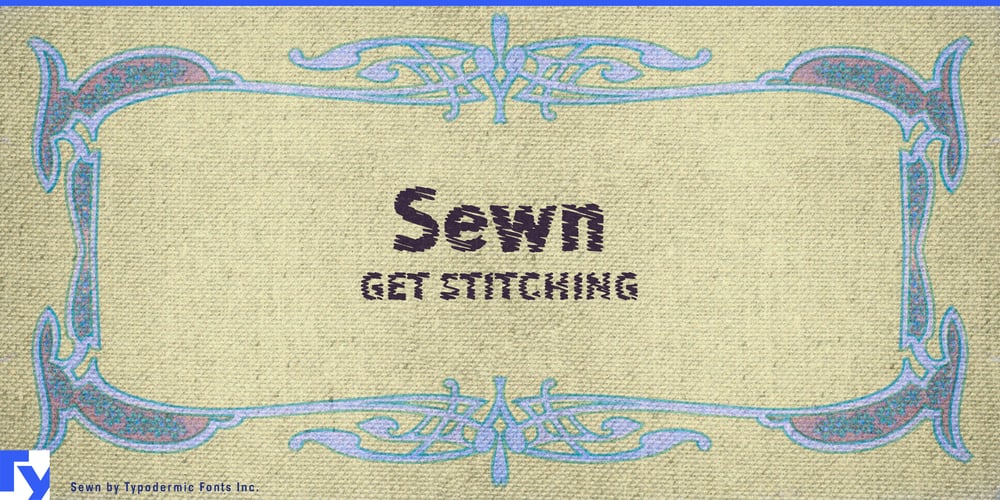
Sewn Font Family was designed by Ray Larabie and published by Typodermic. Sewn contains 4 styles and family package options. Step into a world where each letter tells a story of artisanal precision with Sewn, a typeface that weaves together the warmth of handcrafted textiles and the clarity of modern design. Inspired by the meticulous art of machine embroidery, Sewn brings a tactile dimension to your typography that’s sure to captivate and engage.This innovative typeface offers four meticulously crafted sizes—small, medium, large, and extra-large—each a testament to the delicate balance of thread thickness and stitch density. The result? An authentic embroidered aesthetic that maintains impeccable legibility across various applications. Sewn’s letterforms, influenced by the clean lines of Doradani, ensure your message is not just seen, but felt. Sewn doesn’t just imitate embroidery; it elevates it. The ingenious letter pair ligatures add a layer of sophistication, breaking the potential monotony of repeating characters and creating a visual rhythm that’s as pleasing to the eye as it is true to its craft-inspired roots. This attention to detail transforms ordinary text into a tapestry of typographic delight.From the intricate embellishments of brand logos to the bold statements of editorial headlines, Sewn adapts seamlessly to diverse design challenges. Its unique character shines in both digital and print mediums, lending an air of bespoke craftsmanship to websites, packaging, and signage alike. Sewn’s linguistic versatility is equally impressive. It fluently expresses itself across a vast array of Latin-based European writing systems, from Afaan Oromo to Zuni. This extensive language support ensures your designs resonate across cultures, stitching together global audiences with ease.Embroider your vision into reality with Sewn. This typeface doesn’t just complement your design—it becomes an integral part of your creative narrative. Choose Sewn, and watch as your typography transforms from mere words into a rich, textured experience that leaves a lasting impression.